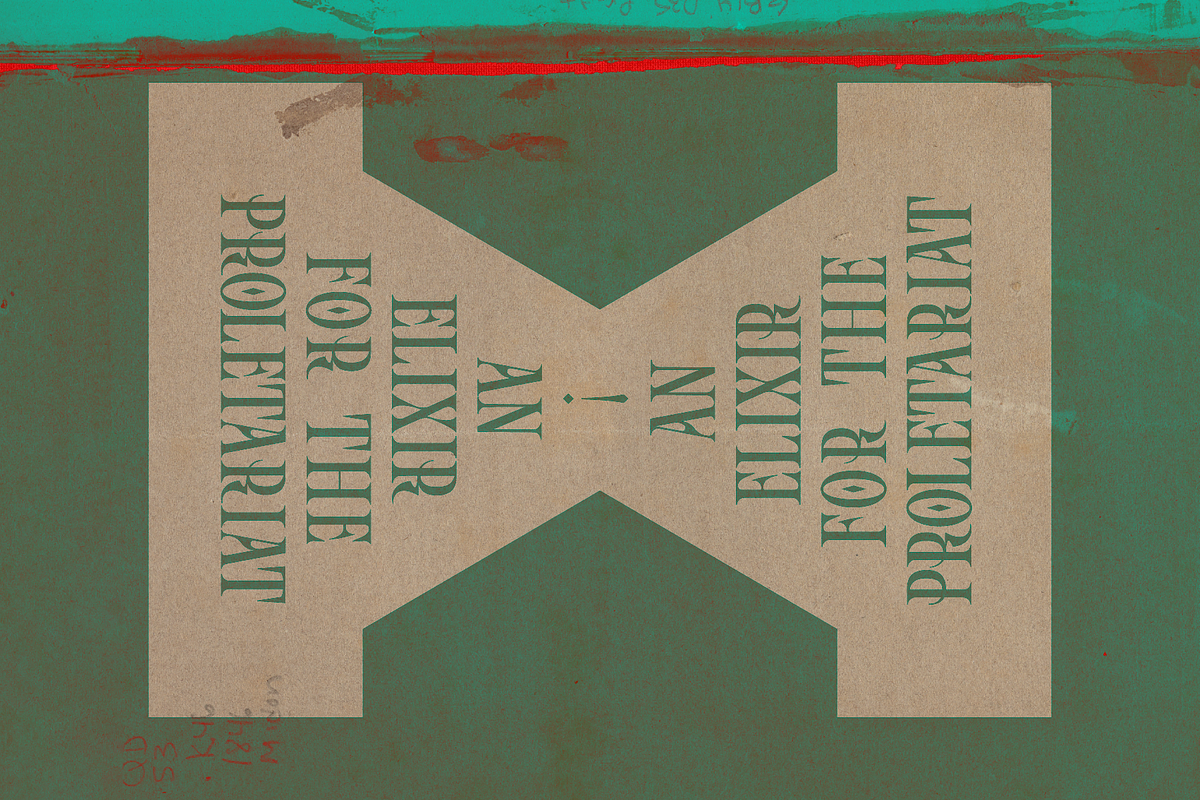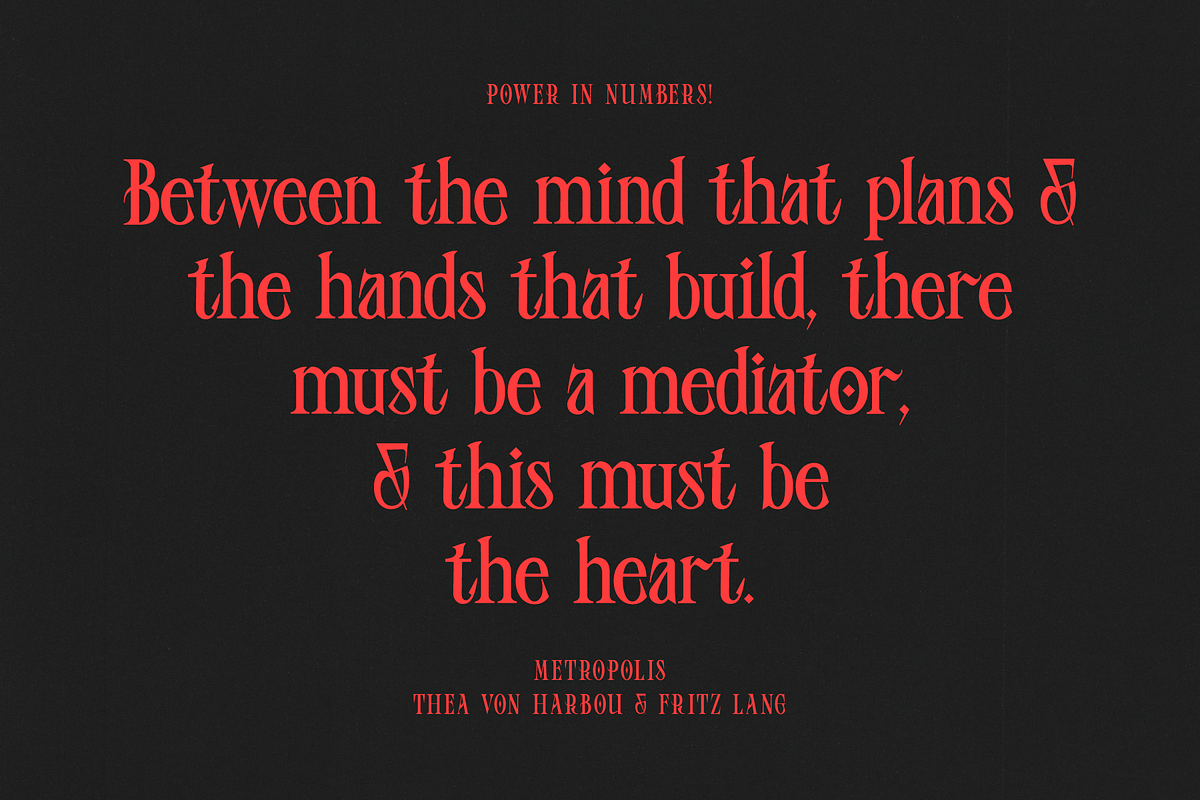
Baroness Beatrice is a blackletter font forged for those who dare to stand out Use it for product packaging, branding, or other projects that need bold and daring typography!